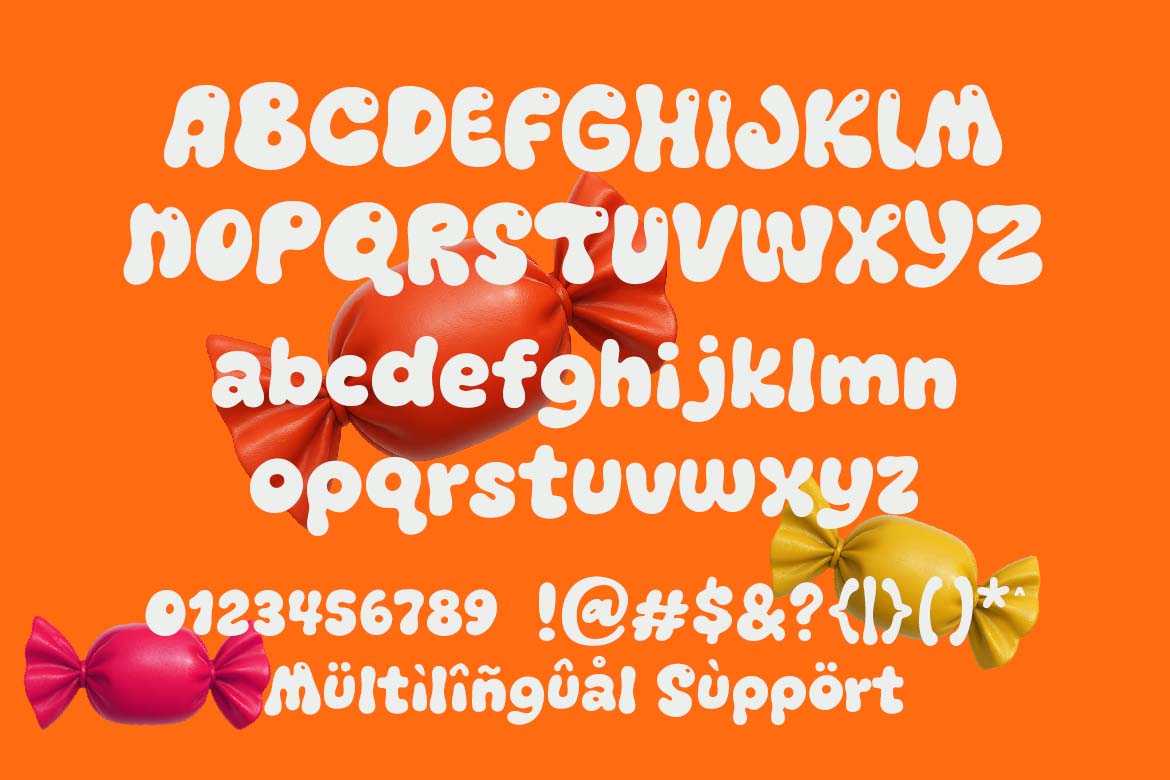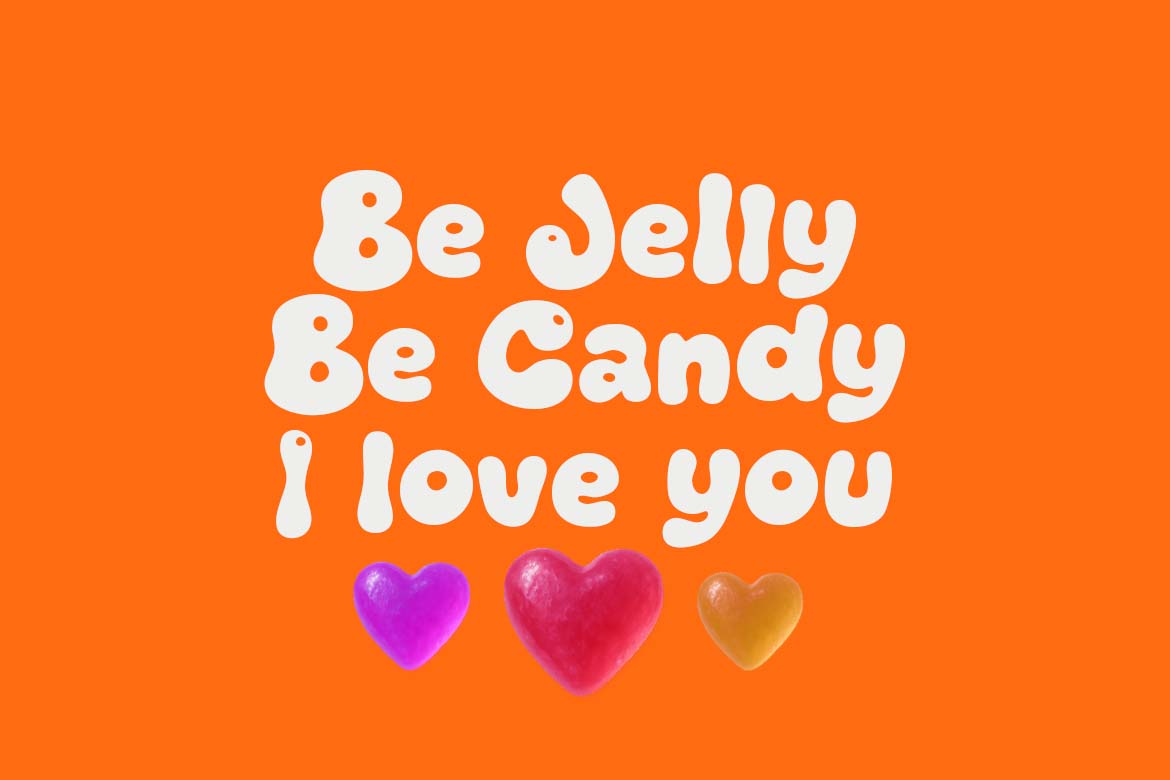
Jelly Candy
Jelly Candy – A Unique Fun Font for Food & Branding Projects
Bring joy and bold personality to your designs with Jelly Candy, a playful and unique display font from Primefont.com. Crafted to capture the delightful spirit of candies and childhood treats, this font is perfect for creating standout logos, product packaging, and bold headlines that spark curiosity and smiles.
Jelly Candy is ideal for food-related designs, especially those targeting kids or snack lovers — from sweet product labels to fun menu designs. Its chunky, bouncy letters and soft curves add a handcrafted, friendly vibe that feels both inviting and memorable.
Whether you’re working on a creative branding project, a quirky logo, or promotional material for a corporate campaign that needs a light-hearted touch, Jelly Candy offers the flexibility to make your message shine.
Use it confidently for:
• Candy and snack product packaging
• Kids’ brand logos
• Corporate branding for fun or seasonal campaigns
• Social media posts and banners
• Any unique design that needs bold, happy energy